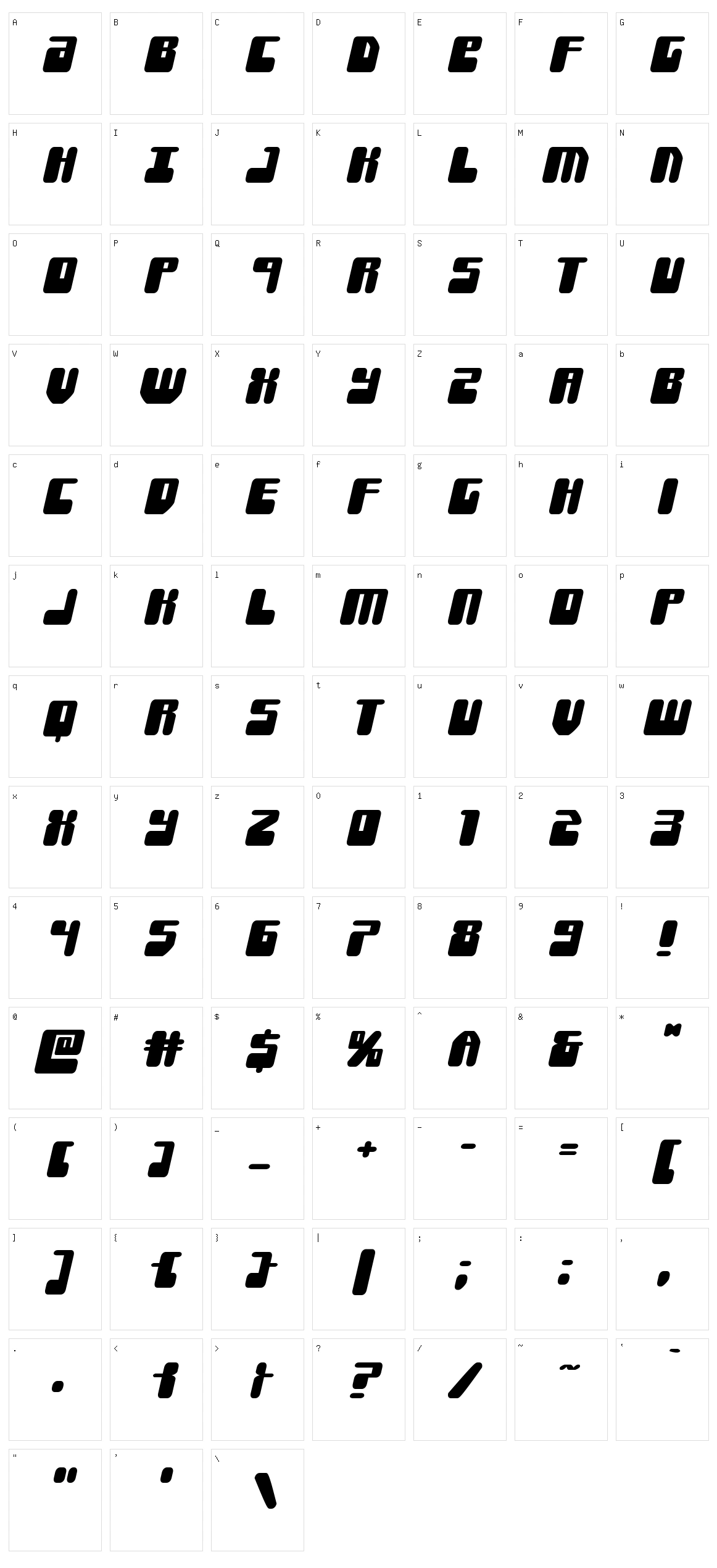
This font comes with the following 27 versions: Regular, Italic, Semi-Italic, Super-Italic, Leftalic, Condensed, Condensed Italic, Expanded, Expanded Italic, 3D, 3D Italic, Gradient, Gradient Italic, Halftone, Halftone Italic, Laser, Laser Italic, Chrome, Chrome Italic, Engraved, Engraved Italic, Bevel, Bevel Italic, Punch, Punch Italic, Title and Title Italic.